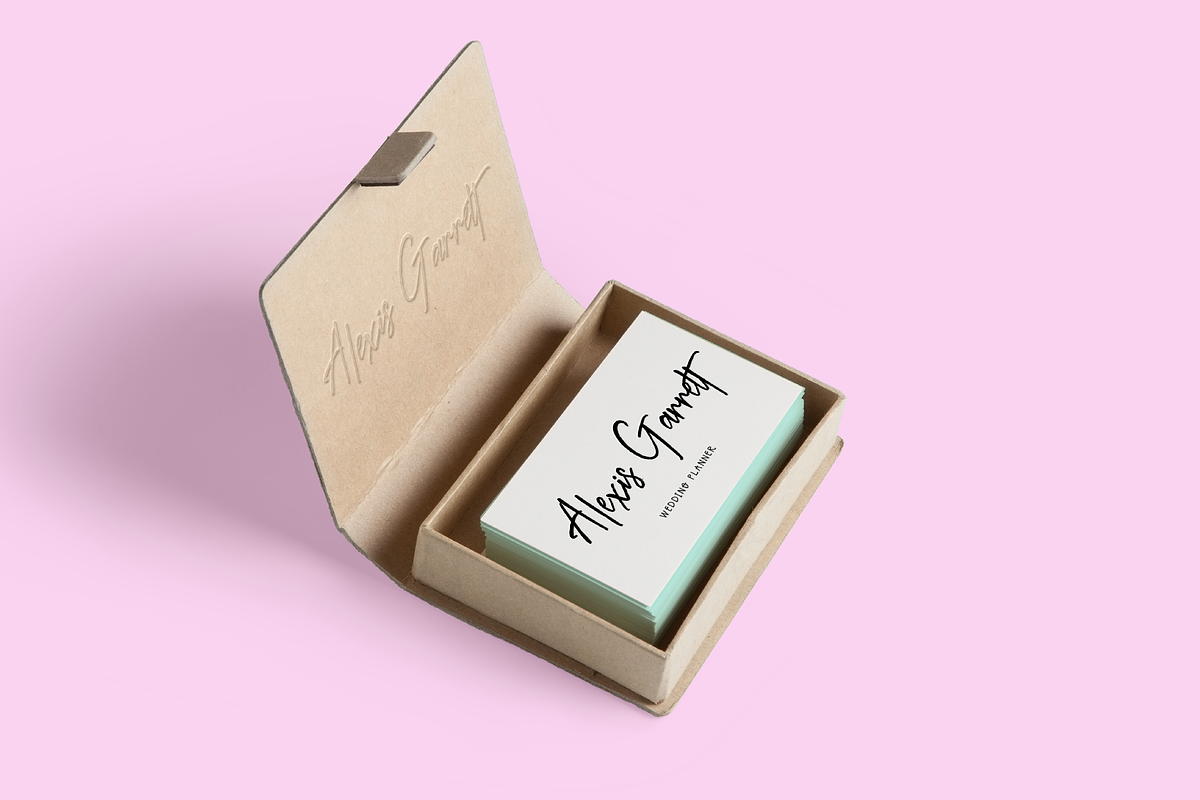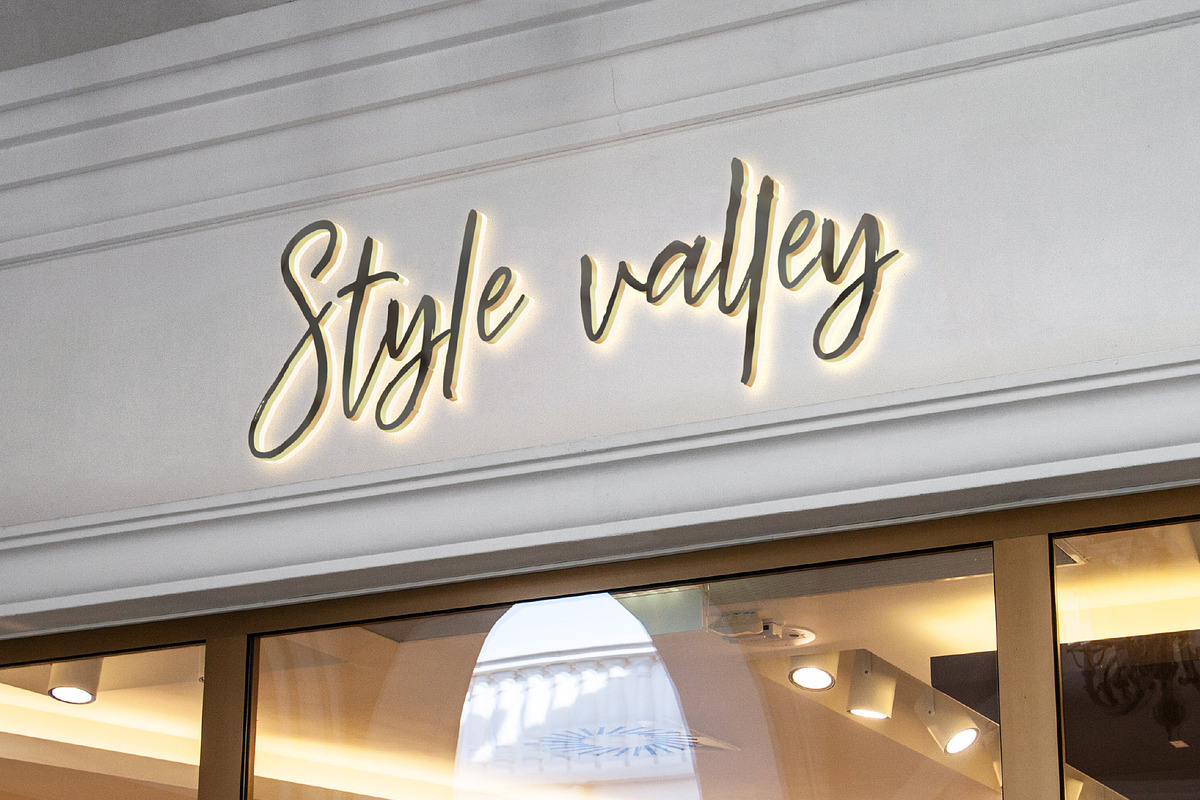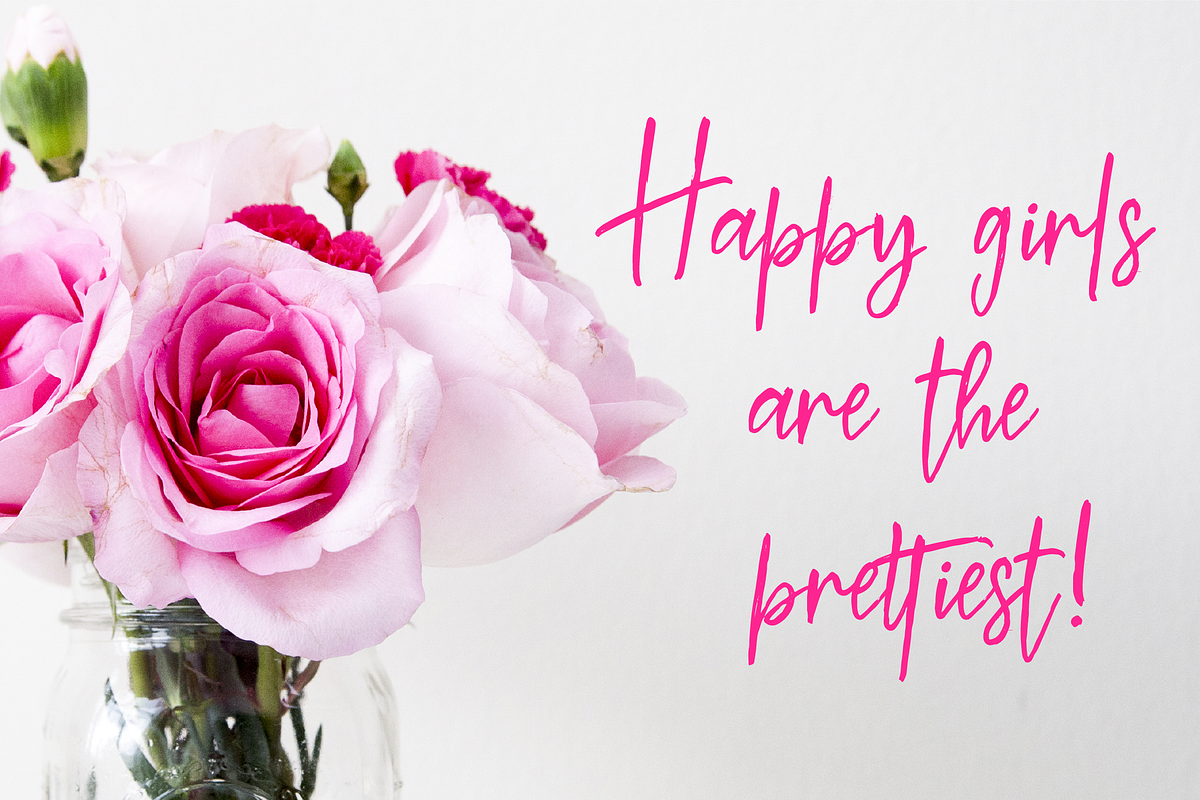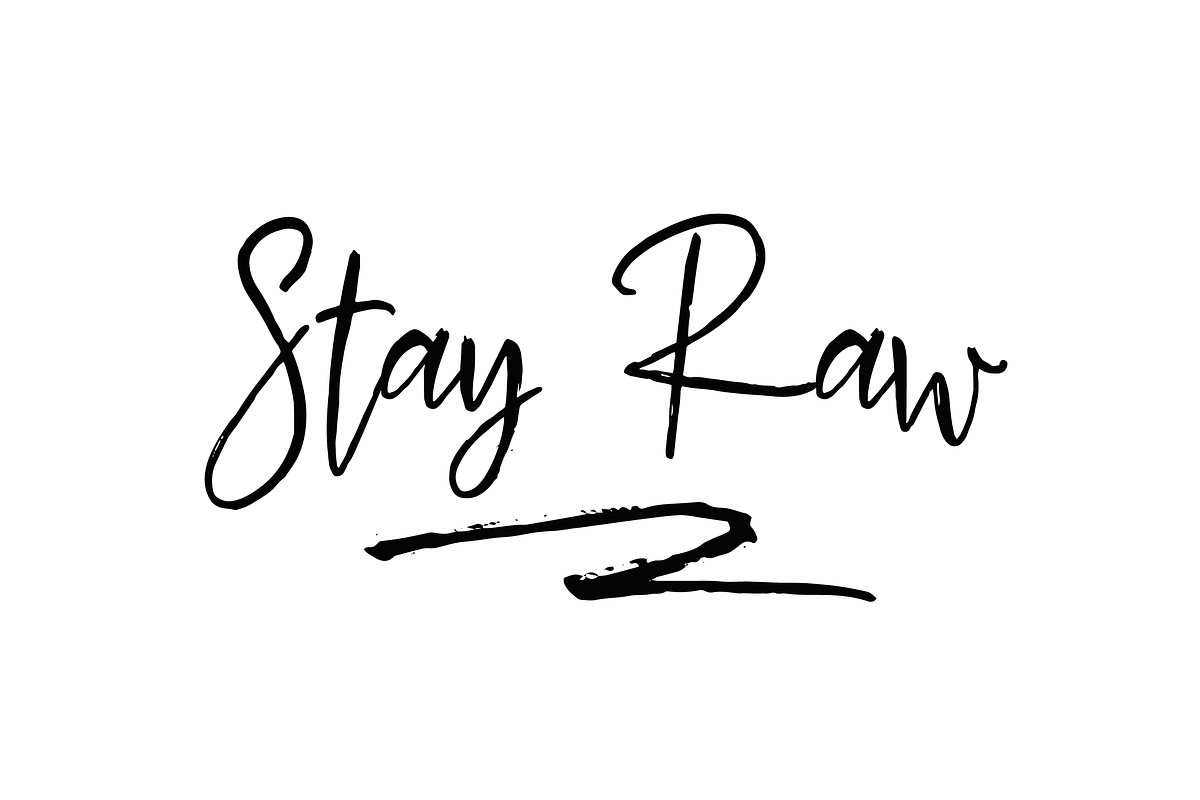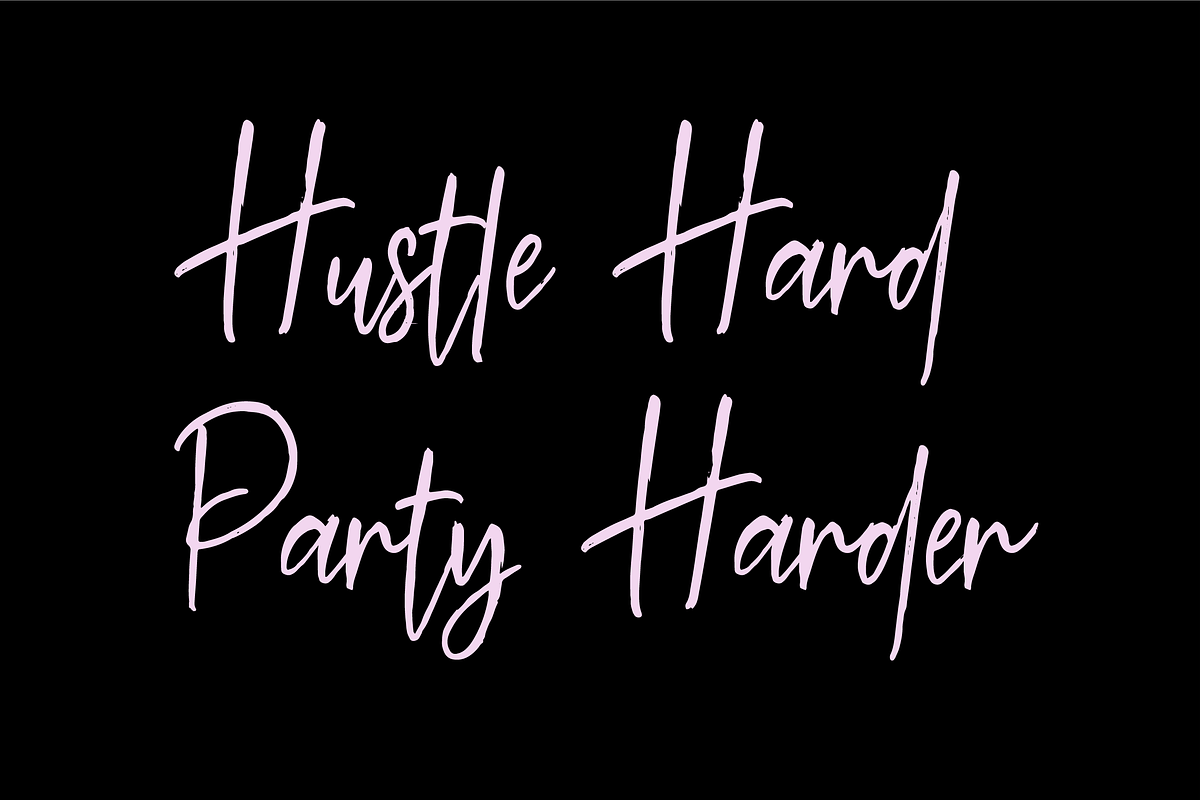
Ciao Bella Font + Extras
Presenting Ciao Bella, a chic modern textured font.
With Ciao Bella, you can give all your design projects a classy yet fun look. It's ideal for all kinds of projects ranging from packaging, branding, to photo overlays, greetings, prints, apparel, etc.
Ciao Bella Regular - A fancy hand lettered font perfect for all projects.
Ciao Bella Extras - 26 brush strokes to add charm to your designs.
- Ciao Bella also comes with it's own set of brush strokes.